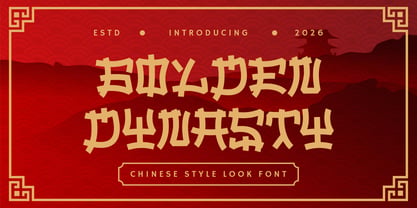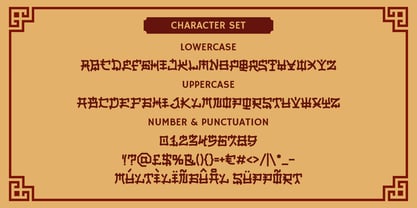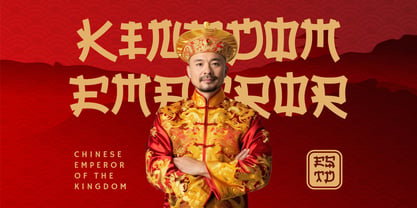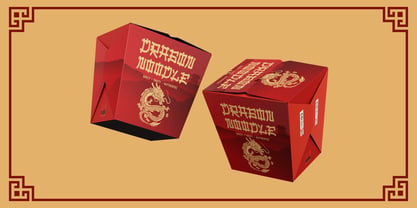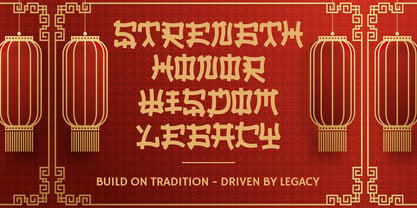
Golden Dynasty
by Shanaf
The Golden Dynasty Font Family was designed by Yesie Erma Yunita and published by Shanaf. Golden Dynasty contains 1 styles. More about this family
Golden Dynasty Chinese Style Font brings a strong Chinese visual identity through sharp, angular, and structured letterforms. Its characters use bold strokes, cut edges, and ornamental shapes that echo traditional Asian signage. The font feels powerful, festive, cultural, and dramatic, making it suitable for standout logo work. Designers can use it for branding, headline, poster, advertising, sticker, greeting card, magazine, and book cover projects. It also fits cultural events, festival campaigns, tourism graphics, and creative businesses that need a memorable China-inspired tone.
This font works especially well for Chinese restaurant branding, noodle shop logos, dimsum menus, tea packaging, takeaway boxes, and food advertising. The theme can also expand beyond one food category. It suits snack brands, sauce packaging, bakery promotions, dessert labels, and beverage businesses with Asian character. Golden Dynasty Chinese Style Font helps product names feel bold and recognizable. Its decorative structure gives strong impact for storefront signs, menu boards, delivery packaging, social media ads, and promotional banners.
The letter shapes create a foreign look while keeping text readable for large titles and brand marks. It supports projects with dynasty, emperor, kingdom, dragon, festival, and tradition concepts. Use it for movie titles, game covers, event invitations, cultural posters, travel campaigns, souvenir labels, and craft products. The font gives designers a clear option for Chinese-inspired branding without losing commercial flexibility. It can support restaurant identity, product launches, entertainment visuals, and seasonal campaigns with a confident cultural atmosphere.